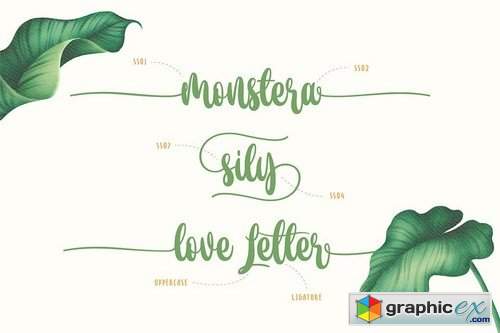
Karimata Brush Script Font
Karimata is an exciting handwritten font with brush style. This beautiful script can make your text appear elegant, luxurious, and modern!